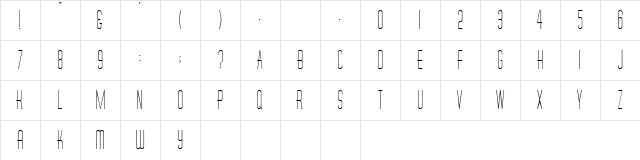
Diner Regular Free Font
Diner Regular
Design Context for Diner
Diner is a composed and adaptable typeface that performs quietly and consistently across a wide range of design contexts.